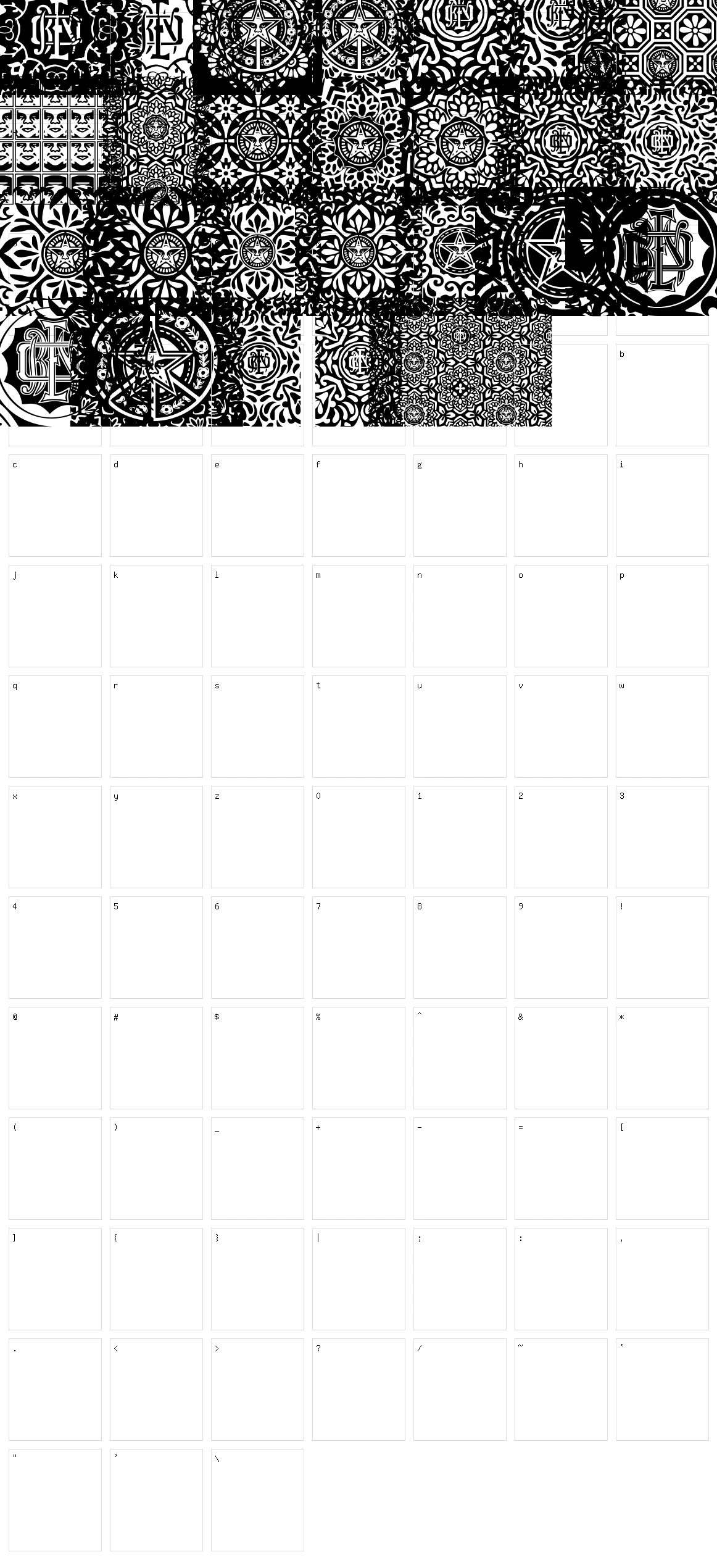
This special series of fonts celebrates the twentieth anniversary of the Obey street art campaign, 1989-2009.
I had to completely rethink the way I make fonts to do this project. Previously, I had been creating source graphics 2½ times as large as the finished glyphs, converting the images to 256 colour bitmaps, reducing the image to 40%, converting to monochrome, then filling in the 'islands' of black and white. This made for fonts with very large file sizes, and images that degraded significantly above 72 point size. The 256 colour transitional stage retained more of the colour source image than if the picture had been converted directly to monochrome, but it also made for fuzzy images, where I often had to guess whether certain pixels should be black or white.
I continued to use this process until about mid-February, 2009, but I was unhappy with the quality of the results, so I decided to edit full colour images directly to monochrome, mostly through manual tracing, but I did adapt many of the images to the extent that the connection between the original source images and the final graphics used for the fonts is not always immediately obvious. I learned a lot of new skills while working on this project, and it would have been completed months ago if I hadn't learned to edit the fonts after importing them into ScanFont, but they are all much the better for my having taken that additional time to do them right.
So, why would I spend a year drawing Obey Giant? Well, first, these pictures were fun to draw. Well, they weren't so fun when I was spending more than ten hours working on a single glyph, but they were very satisfying when completed. I always strive to make the most complex fonts possible, and these were certainly a challenge. I learned much about the technical aspects of font making, something completely lacking in my previous fonts, and this project allowed me to try a number of experiments, all within a common concept. I hope you like them as much as I do.
Obey3D: The A, B, and J glyphs were among the last few graphics I completed. The J is probably my personal favorite in the series. Originally I had planned to do a mirror image of the S glyph, but that one took too long to edit after being imported into the font, so I used something else instead for Obey3DAlt.
I created the source graphics for the XL fonts by stretching the original source images by 200% horizontally and vertically. Most of the larger source graphics were extensively re-edited, but a few were edited entirely within ScanFont. I later found a larger image of the Peace Goddess, (K in ObeyXL1), and I redrew the Giant star from the headpiece, and copy/pasted it into the previously completed graphic. The Y in ObeyXL2 does not appear in a smaller form in any of the other fonts.